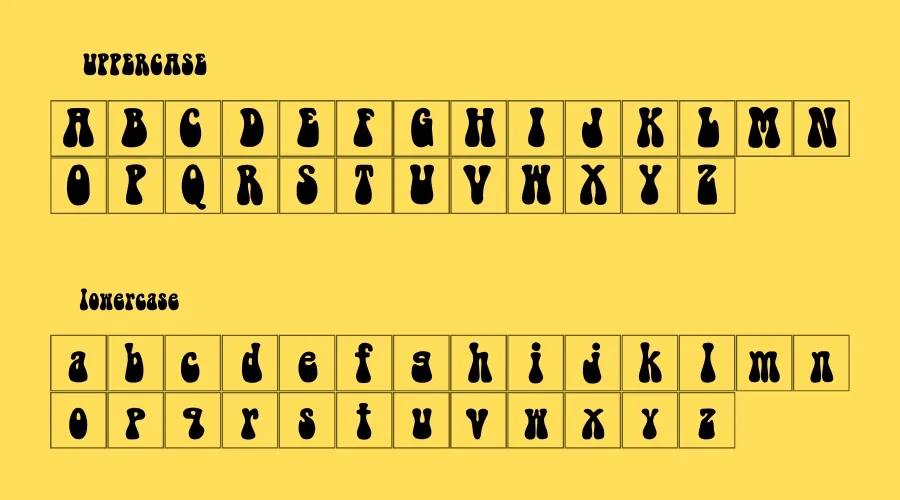
About Bell Bottom Font
Bell Bottom Font is designed by Lorvad this typeface is a great choice for those who are searching for a classic fancy textual style. It is exceptionally smooth and clear, indeed in its size.
This typeface moreover has both lowercase characters and capitalized characters, as well as a huge number of ligatures. This typeface is very similar to the freak font.